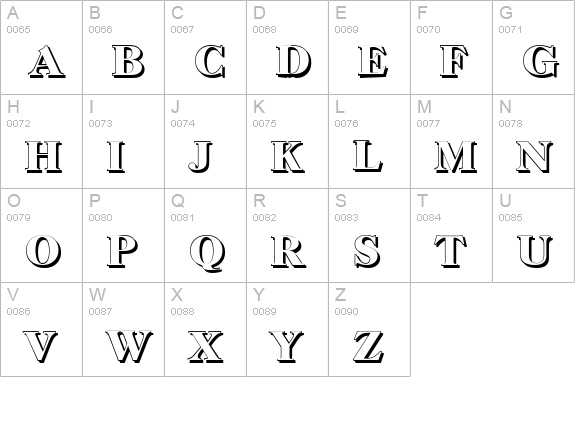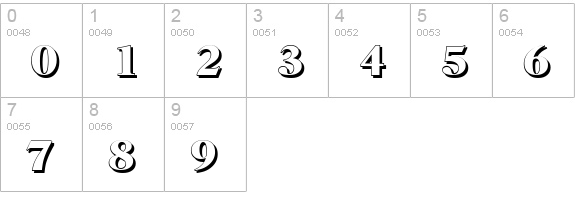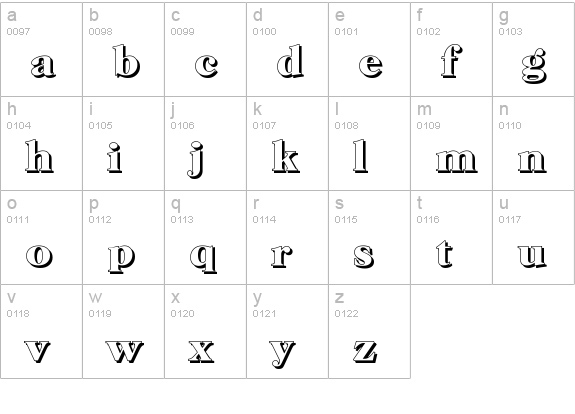
HorshamShadow-Bold Font Details
HorshamShadow-Bold is a strong, high-contrast variant in the HorshamShadow typeface family \xE2\x80\x94 well suited to headlines, attention-grabbing titles, and strong calls-to-action.
HorshamShadow-Bold is a striking and eye-catching display font that commands attention with its bold and shadowed design. This font exudes a sense of strength and modernity, making it perfect for headlines, logos, posters, and other design projects that require a bold statement. The sharp edges and clean lines of HorshamShadow-Bold give it a contemporary and edgy feel, while the shadow effect adds depth and dimension to each character. What's even better is that HorshamShadow-Bold is available for free download at FontsMarket.com, making it accessible to all designers and creatives looking to add a touch of boldness to their projects. Whether you're working on branding, advertising, or any other design endeavor, HorshamShadow-Bold is sure to make a powerful impact and elevate your work to the next level. Download this dynamic font today and unleash its bold energy in your designs.